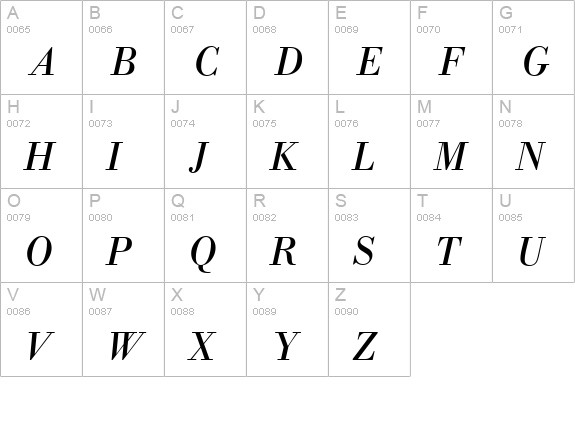
ModernBodoni-Italic Font Details
ModernBodoni-Italic is a distinctive, italic variant in the ModernBodoni typeface family \xE2\x80\x94 well suited to design and typography projects.
ModernBodoni-Italic is a sleek and elegant typeface that embodies sophistication and grace. Its stylish slanted letters exude a sense of modernity and refinement, making it a perfect choice for projects that require a touch of class. The italicized version of the classic Bodoni font adds a unique flair to any design, whether it's for print or digital media. This font is not only visually appealing but also highly versatile, suitable for a wide range of applications including editorial design, branding, and advertising. Its clean lines and fluid curves create a sense of movement and energy, making it a dynamic choice for capturing attention and conveying a sense of style. What's even better is that ModernBodoni-Italic is available for free download at FontsMarket.com. This means you can easily access this premium font without any cost, making it a valuable addition to your font library. Don't miss out on the opportunity to elevate your designs with this exquisite typeface that combines tradition with a contemporary twist.